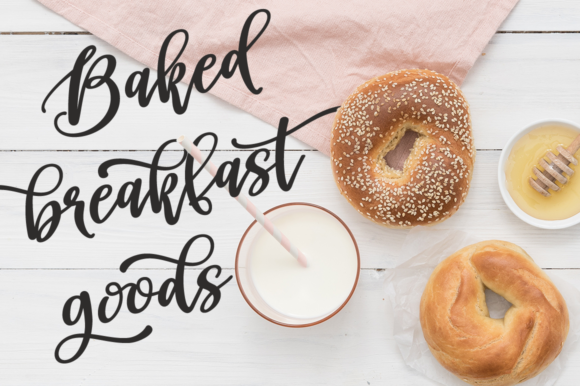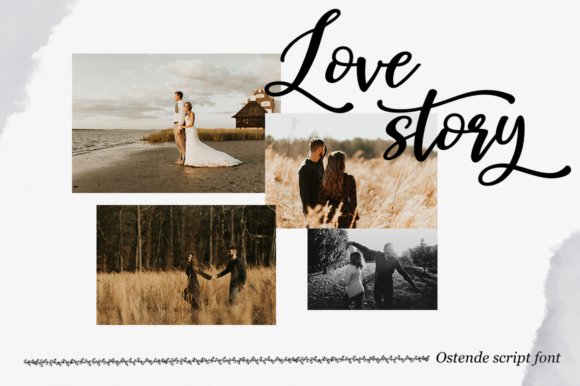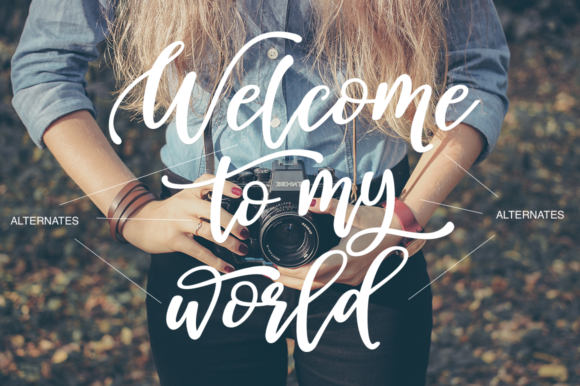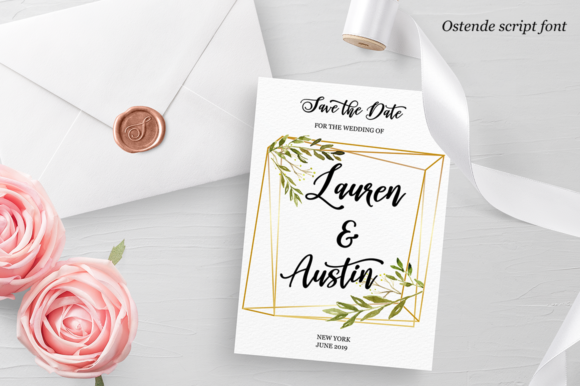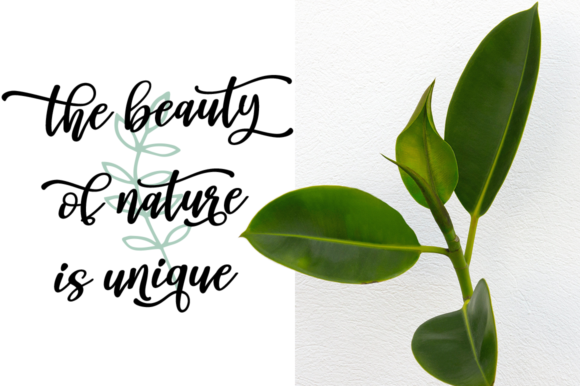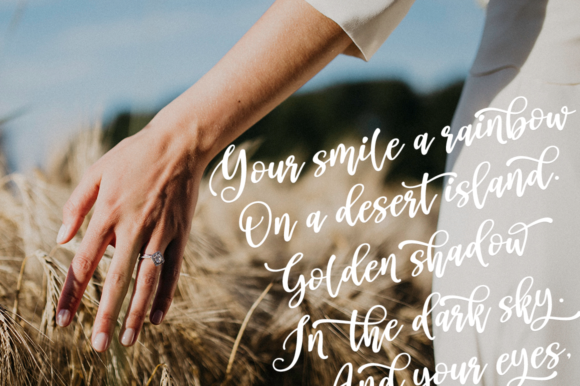
Introduction to Ostende Font
Have you ever been brainstorming for hours, staring at a blank canvas, waiting for that perfect spark to strike? For designers, this moment is a familiar one. It’s the moment when the right font can make all the difference between a good design and a great one. That’s why we’re excited to introduce you to the beautiful Ostende Font, a high-quality design resource that’s sure to elevate your next creative project.
With its elegant and refined style, the Ostende Font is perfect for branding, invitations, logos, and much more. What sets it apart is its versatility – it works beautifully with transparent backgrounds, giving your design a clean and sophisticated look. Whether you’re a seasoned designer or just starting out, this font is a valuable addition to your toolkit.
Ostende Font
- High-quality font suitable for creative projects, offering a unique and elegant design.
- Transparent background, making it ideal for use on any background color or image.
- Designed to be highly legible, with clear lines and a consistent style.
- Perfect for use in logos, headings, and body text for a wide range of creative projects.
Honest Review: Ostende Font
As a designer, I’ve had the pleasure of working with numerous high quality fonts, but the Ostende Font has definitely left a lasting impression. This beautiful design resource is a great addition to any creative project.
One of the standout features of the Ostende Font is its versatility. It comes in a variety of styles, each with its own unique flair, making it easy to find the perfect fit for your design needs. The transparent background is also a huge plus, allowing for seamless integration into any layout.
Here are some of the things that work well with the Ostende Font:
- Beautifully designed
While the Ostende Font is an excellent choice for many designers, there are a few limitations to consider:
- Some characters may be difficult to read at small font sizes
Overall, I’m thoroughly impressed with the Ostende Font. Its high quality design and versatility make it a valuable addition to any design resource collection. If you’re looking for a font to elevate your creative project, look no further.
Tips for Getting the Most Out of Ostende Font
For optimal results, use Ostende Font in conjunction with other high-quality design elements, such as images and graphics. You can also experiment with different font sizes, colors, and styles to create a unique and engaging design.
Ostende Font is ideal for various creative projects, including logo design, branding, and marketing materials. It can also be used for creating presentations, reports, and other written content that requires a clear and professional font.